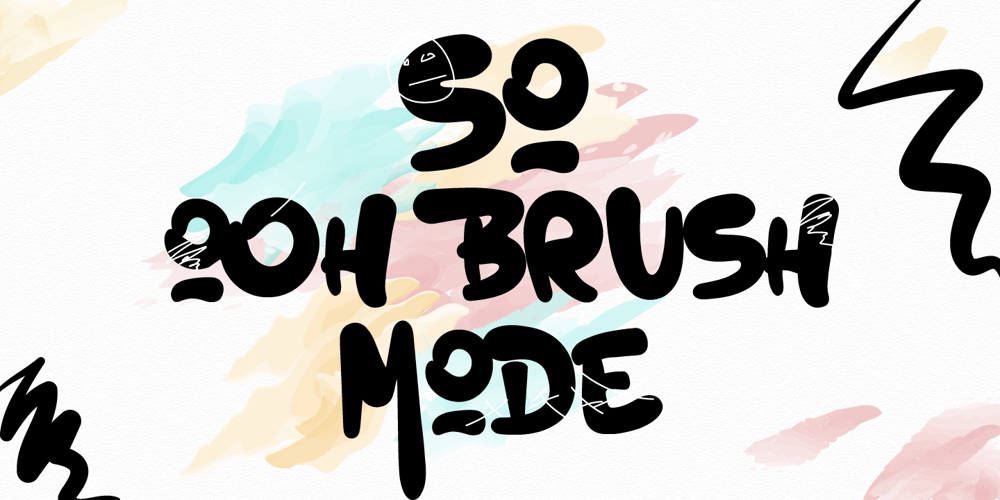
Zt OOH
Zt OOH font
Zt OOH Font Family was designed by Khair Unnas and published by Khaiuns. Zt OOH contains 1 styles and family package options. ZT OOH is a bold, free-flowing and confident Brush Font, adding texture and hand-doodles to your designs makes for cool quirky projects.ZT OOH is a brush font that you can use and enjoy over and over again, with 46 ligatures and multiple alternatives suitable for all graphic designs such as branding materials, t-shirts, prints, business cards, logos, posters, t-shirts, photography, quote .etcI hope you have fun using ZT OOHThanks for using this font ~ Khaiuns x Zelowtype